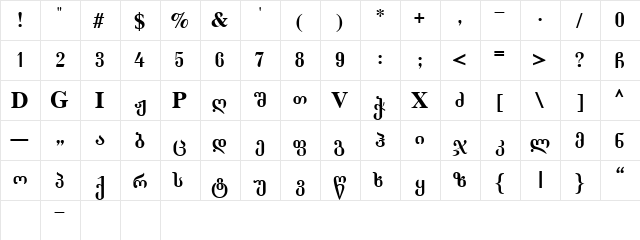
GeoDumba Regular
Design Context for GeoDumba Typeface
GeoDumba is a composed and adaptable typeface that performs quietly and consistently across a wide range of design contexts.